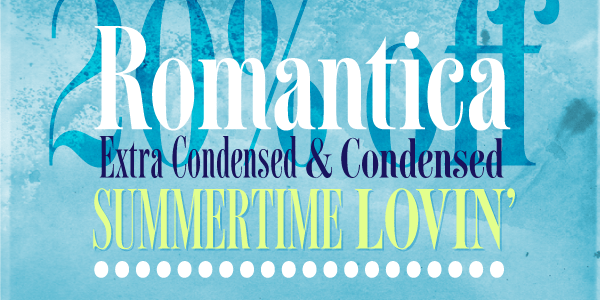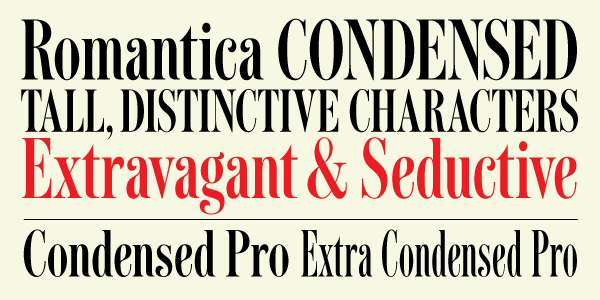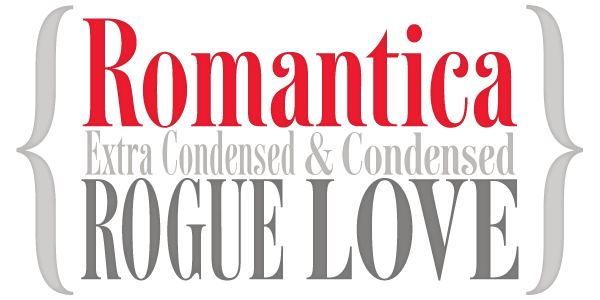
Romantica Pro
Romantica Pro is an elegant serif typeface with tall, distinctive characters, designed specifically for Romance pocket book novels to fit more words in a narrow space.
Romantica Pro contains two styles: Condensed Pro and Extra Condensed Pro. Opentype features include ligatures, numerators, denominators, fractions and Central European language support.